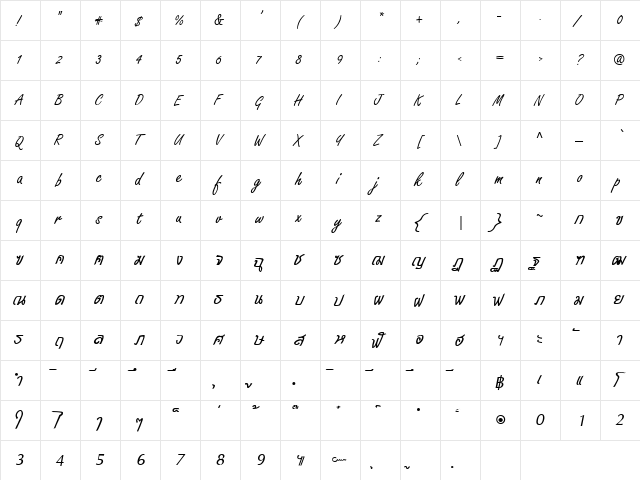
DSN FreeJack Regular
Design Context for DSN FreeJack Typeface
DSN FreeJack is a composed and adaptable typeface that performs quietly and consistently across a wide range of design contexts.